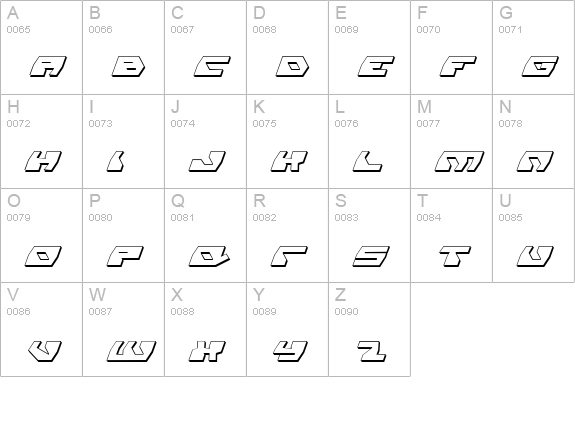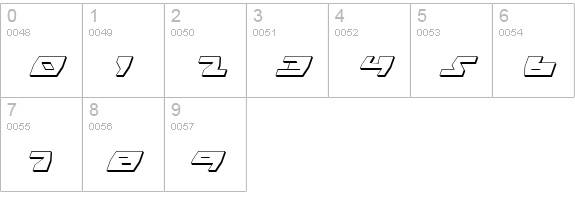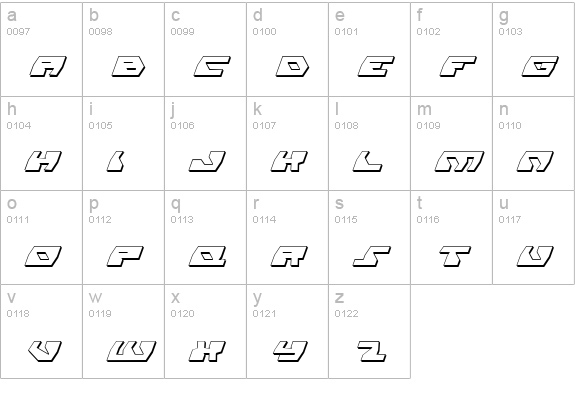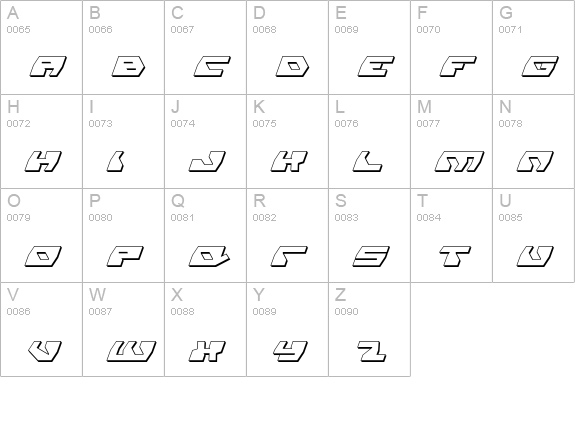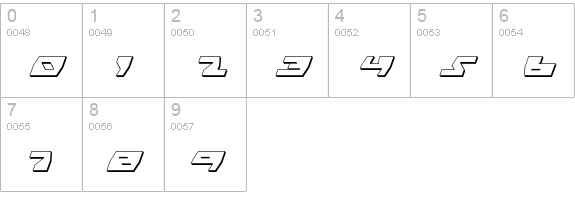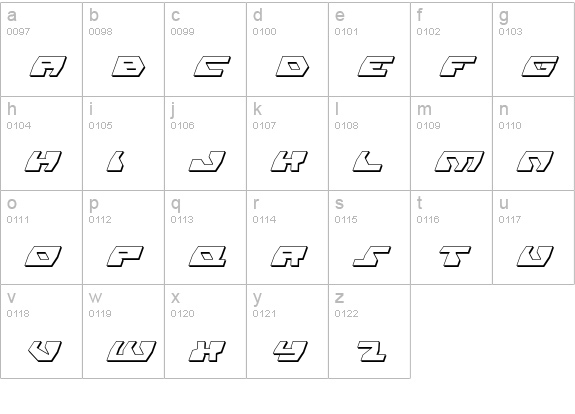
Daedalus Shadow Italic Font Details
Daedalus Shadow Italic is a distinctive, italic variant in the Daedalus typeface family \xE2\x80\x94 well suited to design and typography projects.
Daedalus Shadow Italic font is a stylish and elegant typeface that exudes sophistication and creativity. With its unique shadow effect, this font adds depth and visual interest to any design project. The slanted italic style gives it a modern and dynamic feel, perfect for adding a touch of flair to your work. Best of all, Daedalus Shadow Italic font is completely free to download at FontsMarket.com. Whether you're working on graphic design projects, branding materials, or web design, this versatile font is sure to make a statement. Download it today and elevate your designs with this eye-catching and distinctive typeface.